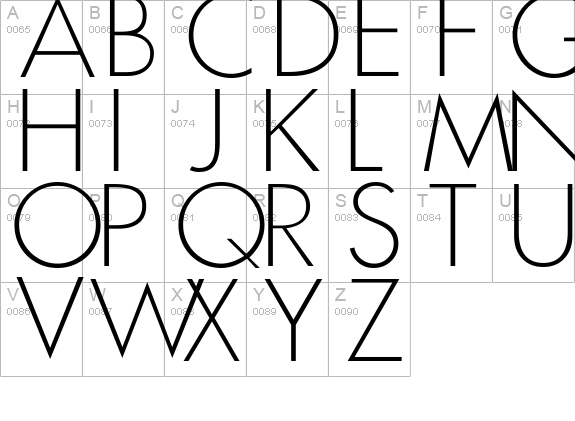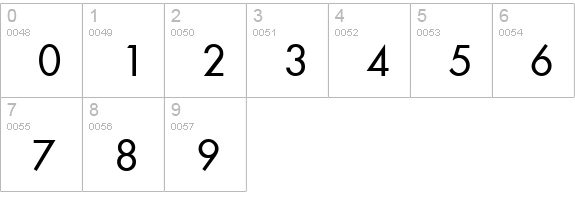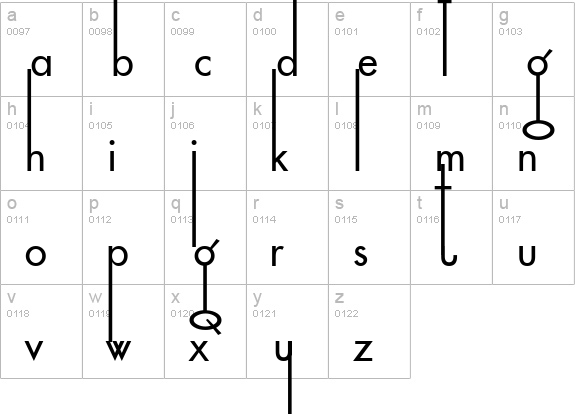
Coffee Shop Font Details
The Coffee Shop font is a charming and cozy typeface inspired by the warm and inviting atmosphere of your favorite neighborhood café. With its playful curves and elegant design, this font exudes a sense of comfort and relaxation, just like sipping a delicious cup of coffee on a lazy afternoon. Perfect for adding a touch of whimsy to your designs, the Coffee Shop font is versatile and easy to read, making it ideal for a wide range of projects including branding, packaging, invitations, and more. Whether you're looking to create a welcoming ambiance or simply add a touch of flair to your next project, this font is sure to delight. Best of all, the Coffee Shop font is available for free download at FontsMarket.com, so you can bring the cozy charm of your favorite coffee shop to your designs without breaking the bank. Download this delightful font today and infuse your creations with the warmth and comfort of a relaxing coffee break.